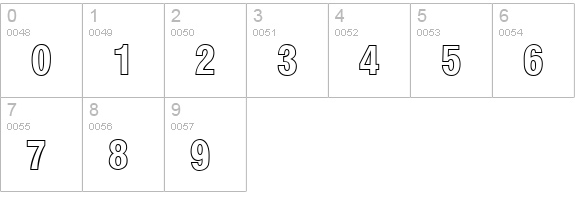
Milford Hollow Font Details
Milford Hollow is a stunning font that encompasses a perfect balance between elegance and playfulness. With its unique and intricate letterforms, this font is sure to captivate and inspire any designer or typographer. The beauty of Milford Hollow lies in its versatility. Whether you're creating a logo, designing a poster, or working on a branding project, this font effortlessly adapts to any creative endeavor. Its clean lines and carefully crafted curves add a touch of sophistication, while its subtle quirks inject a sense of character and charm. One of the most remarkable aspects of Milford Hollow is that it is freely available to download at FontsMarket.com. As a designer, having access to high-quality fonts that don't break the bank is essential, and Milford Hollow delivers on that front. You can now elevate your designs without worrying about budget constraints, allowing your creativity to flow freely. The wide range of weights and styles offered by Milford Hollow further enhances its versatility. From bold and impactful to delicate and refined, this font has it all. Its comprehensive range of options ensures that you can find the perfect fit for any project, making it a go-to choice for both seasoned professionals and aspiring designers. Milford Hollow's attention to detail is evident in every glyph. Each letter is meticulously crafted, creating a harmonious and visually pleasing composition. The consistent spacing and balanced proportions contribute to its overall aesthetic appeal, making it a joy to work with. With Milford Hollow, your designs will stand out from the crowd. Its unique and eye-catching design will instantly grab attention and leave a lasting impression. Whether you're aiming for a contemporary look or a vintage vibe, this font has the versatility to bring your vision to life. So why wait? Download Milford Hollow for free at FontsMarket.com and unlock a world of creative possibilities. Let this font be the catalyst for your next design masterpiece.